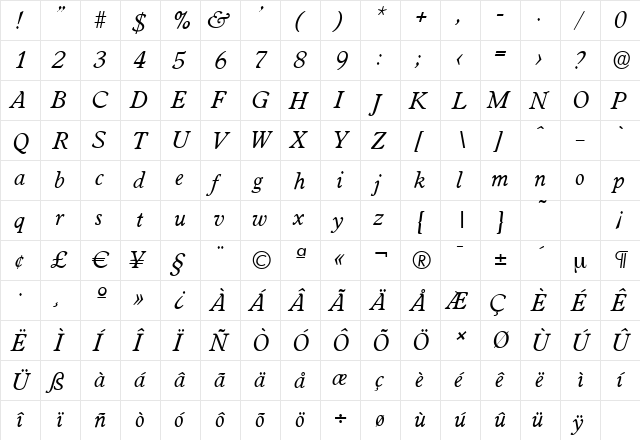
WorcesterSerial Italic
Design Context for WorcesterSerial Typeface
WorcesterSerial is a composed and adaptable typeface that performs quietly and consistently across a wide range of design contexts. Its italic angle brings a sense of urgency and motion to the letterforms.
Pro Tip: Use WorcesterSerial for emphasis, pull quotes, and subheadings where its slanted energy can add rhythm to the layout.